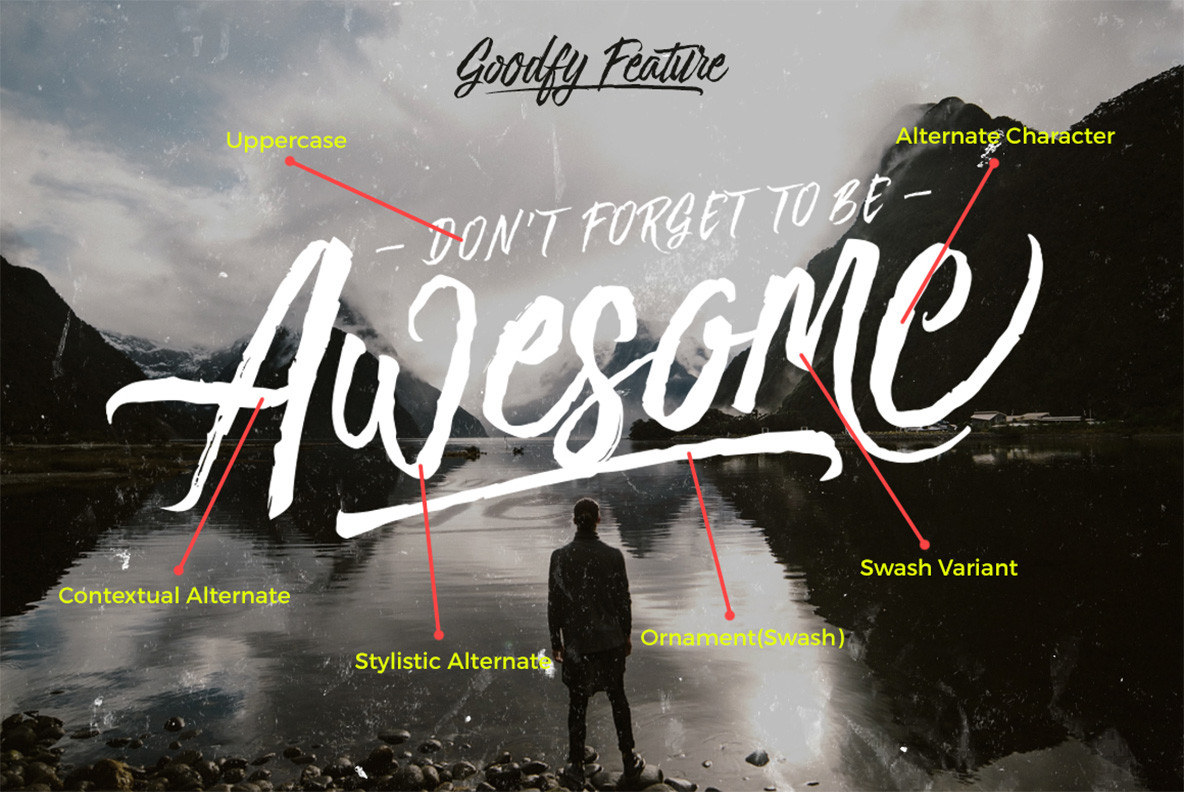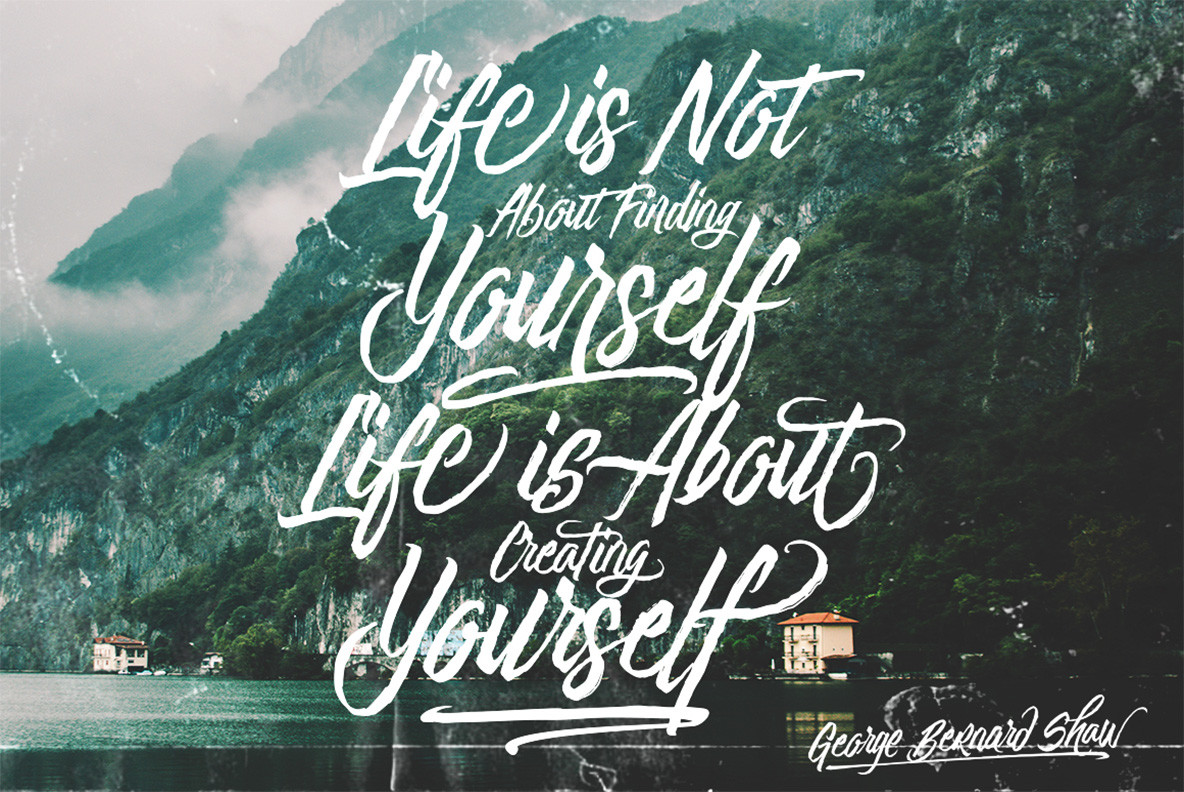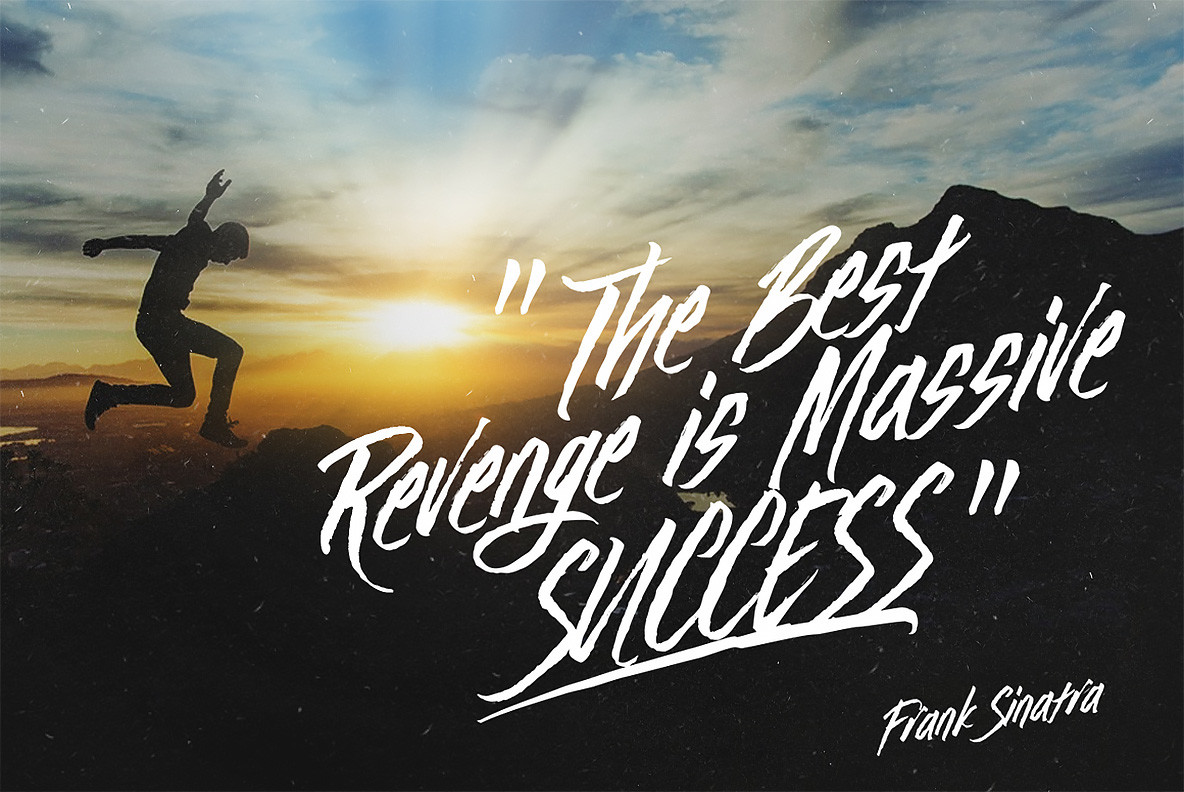
Goody is a quick brush typeface based on original lettering, using a brush pen. Goodfy is great for giving a fast, handlettered feeling to your work. This design contains over 300 glyphs, including swash variants, and other various OpenType extended features.